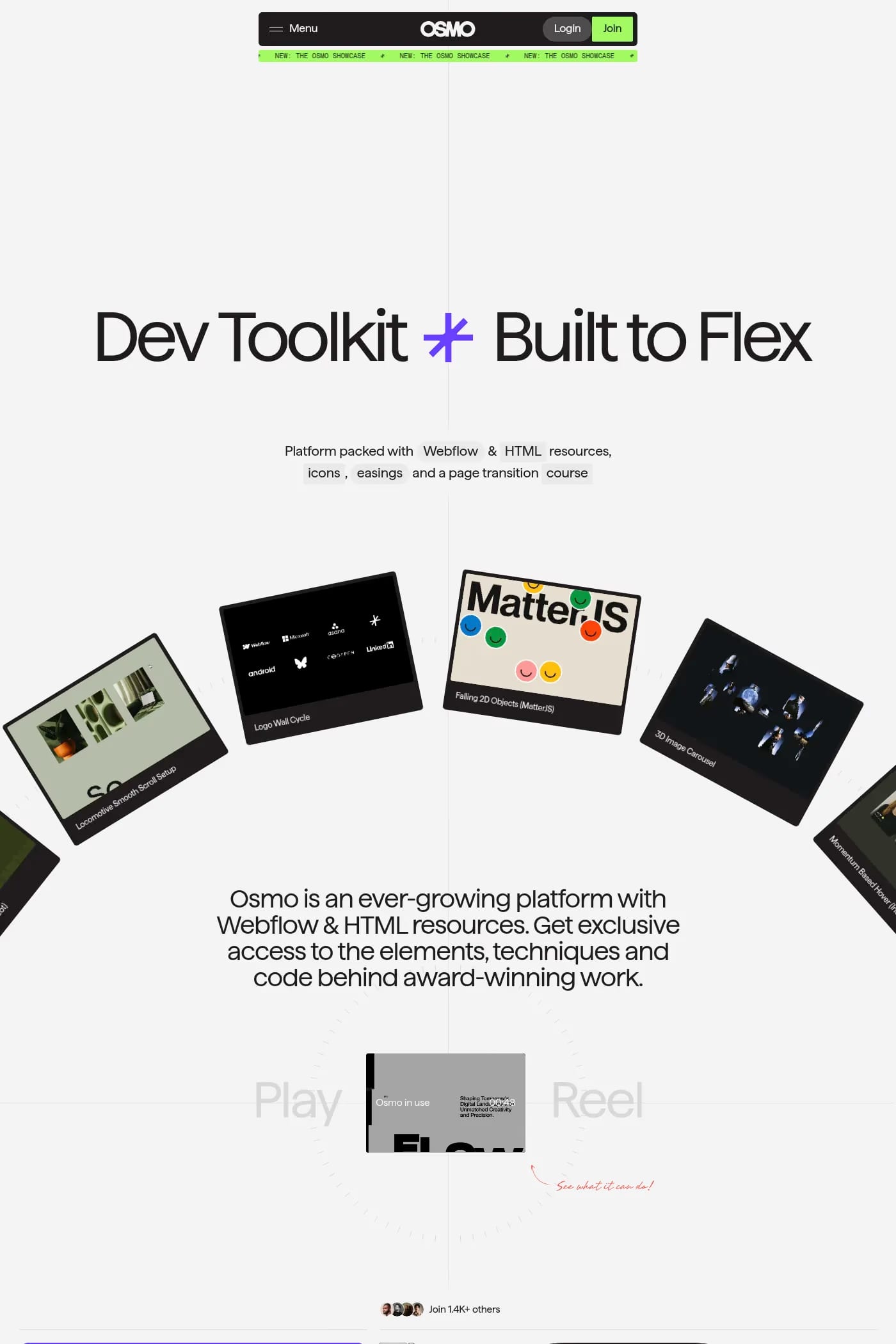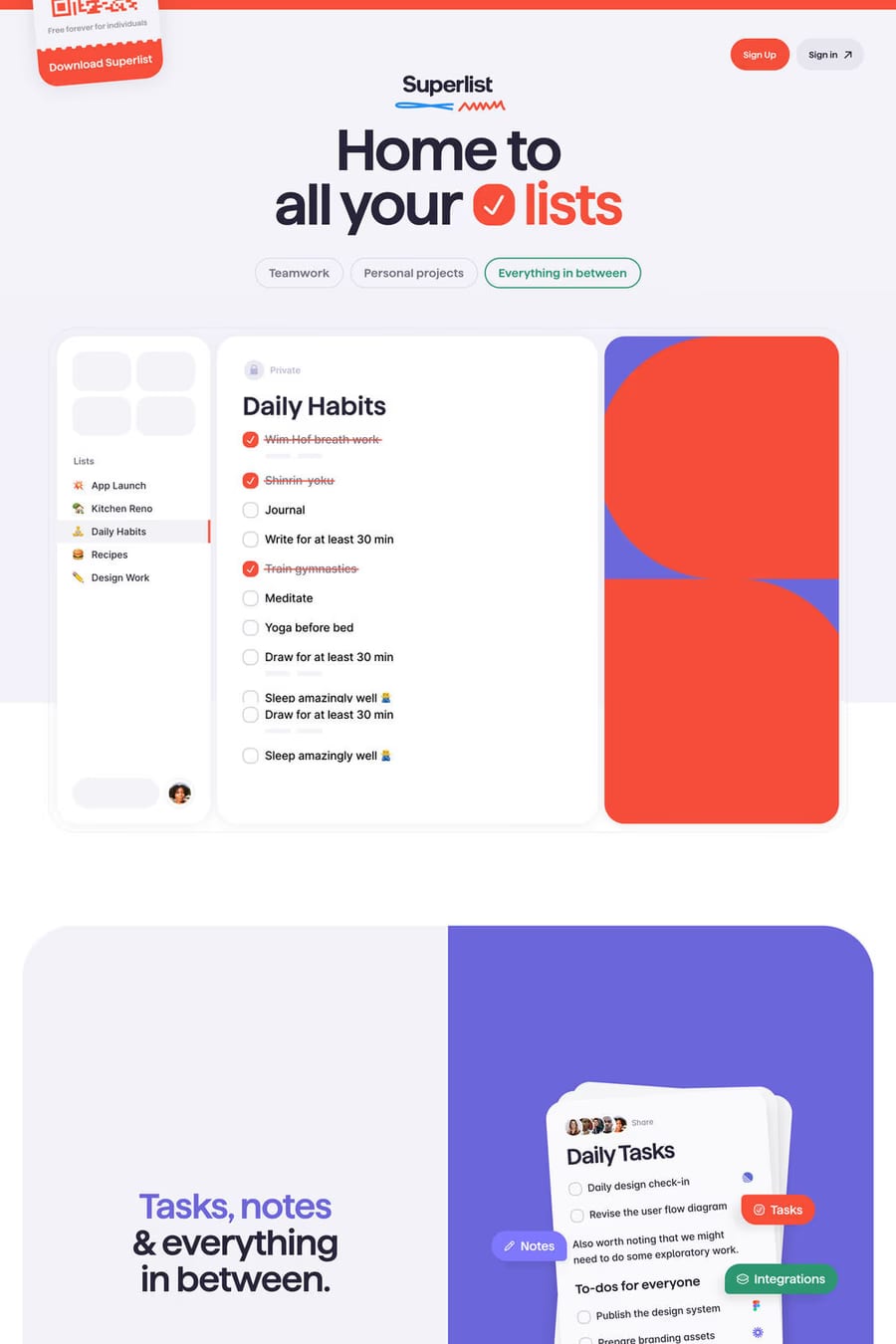
Haffer is a sans-serif typeface from Displaay Type Foundry.
Haffer is a cold version of our Matter typeface with strict horizontal or vertical terminals. But as its essence comes from Matter, it still has a friendly and warm character. This version has a new, wider range of styles compared to Matter. The x-height is in a standard position compared to the Haffer XH version, where the x-height is significantly higher (hence the name XH).
A1 features 5 websites using Haffer, including Osmo, Elegant Seagulls, and GoCardless. They lean towards Interactive, Shapes, and Big type design styles, and they’re most often built with Webflow and Gatsby.